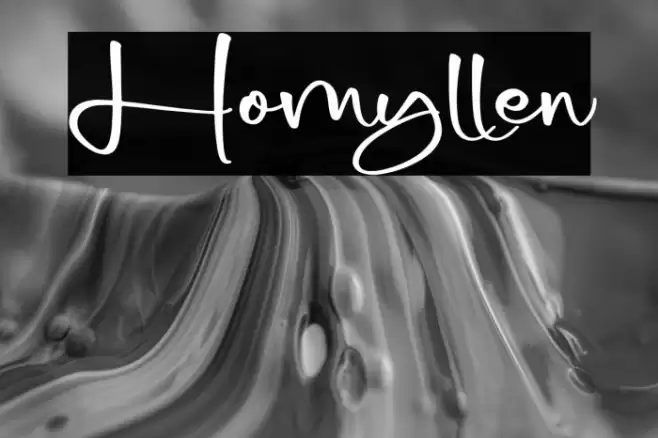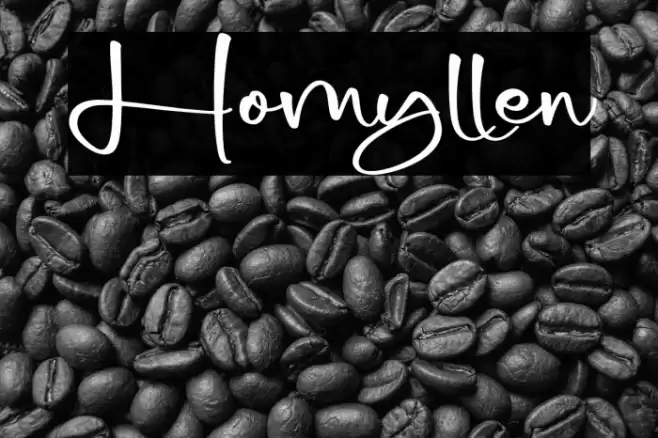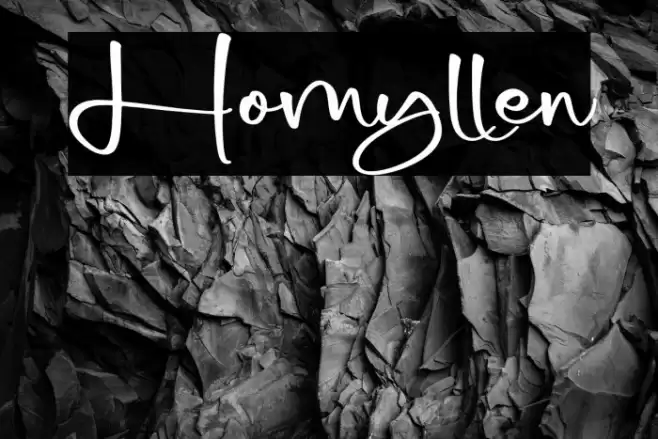
Homyllen Font
Homyllen Description
This font exudes a playful and artistic flair, characterized by its flowing, cursive style that mimics the fluidity of handwriting. The uppercase letters are elegantly looped and slightly exaggerated, giving them a whimsical touch. The lowercase letters maintain a consistent rhythm, with some characters featuring unique flourishes that add to the font's charm. The numerals are bold and clear, ensuring readability while maintaining the font's overall artistic style. Special characters are creatively designed, fitting seamlessly with the rest of the typeface. This font is perfect for projects that require a personal, handcrafted feel.
A playful, cursive font with artistic, handwritten characteristics from Uncategorized fonts.
- Proposed Projects: Ideal for greeting cards, invitations, personal branding, and creative projects that require a touch of whimsy.
- Use Case: Logos, Invitations, Greeting Cards